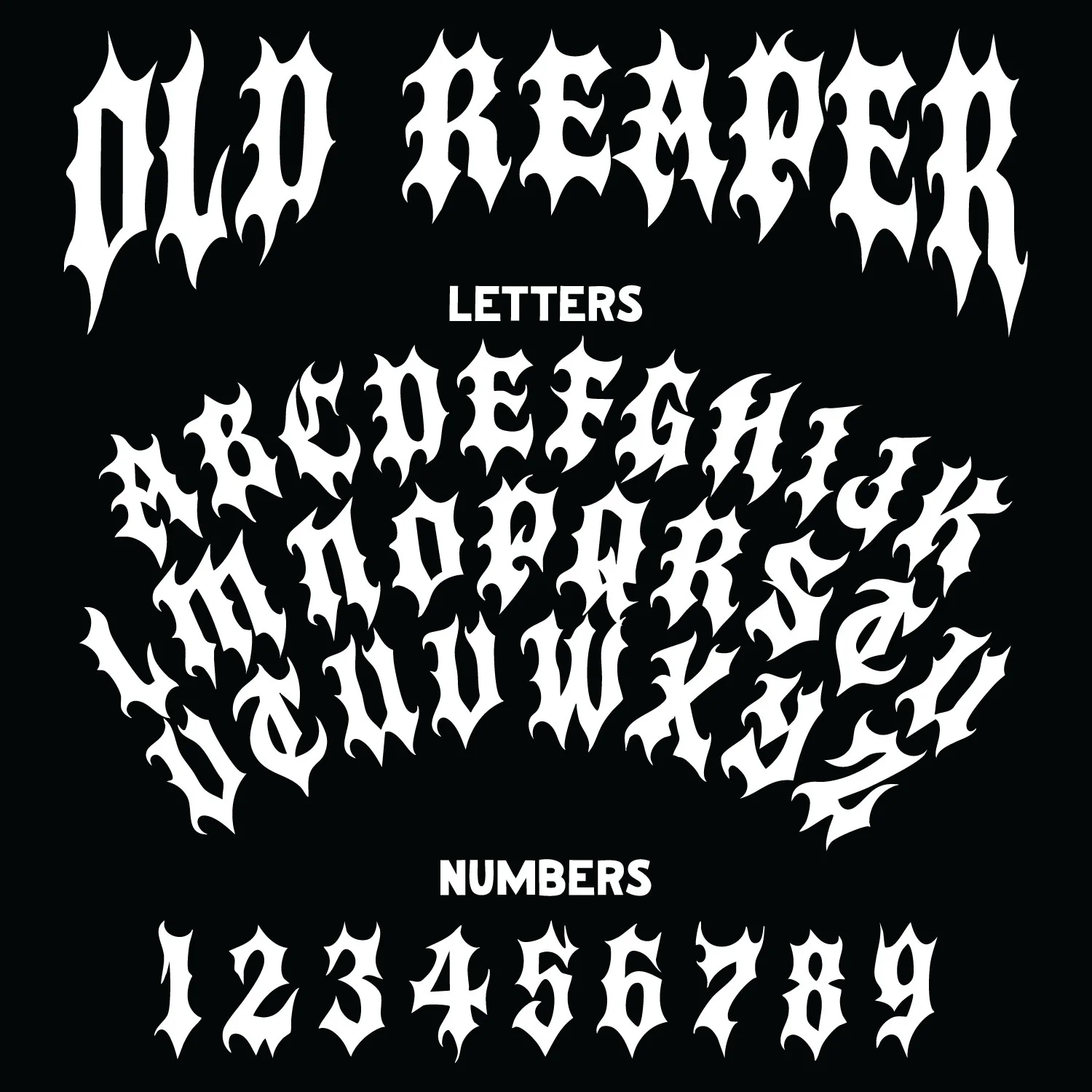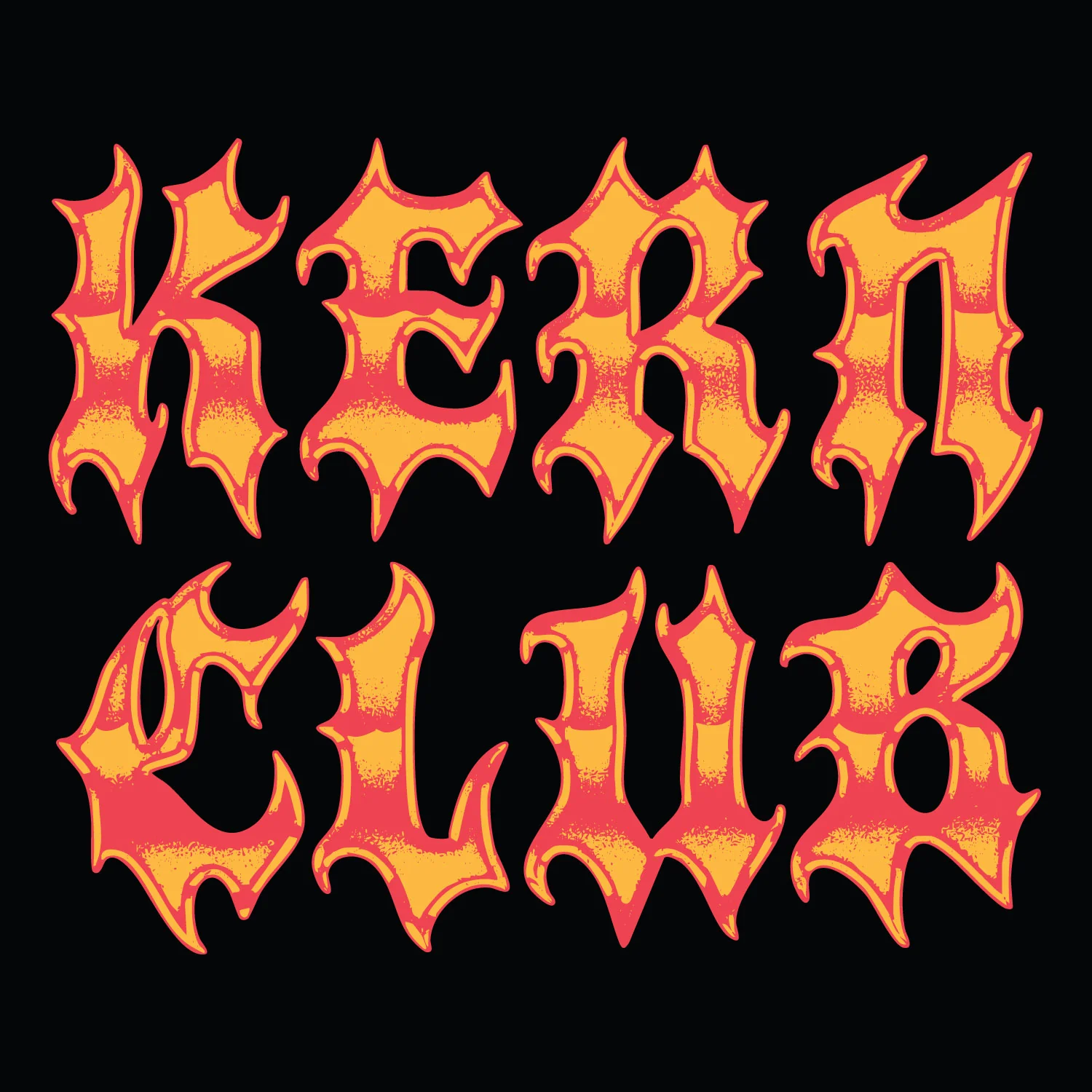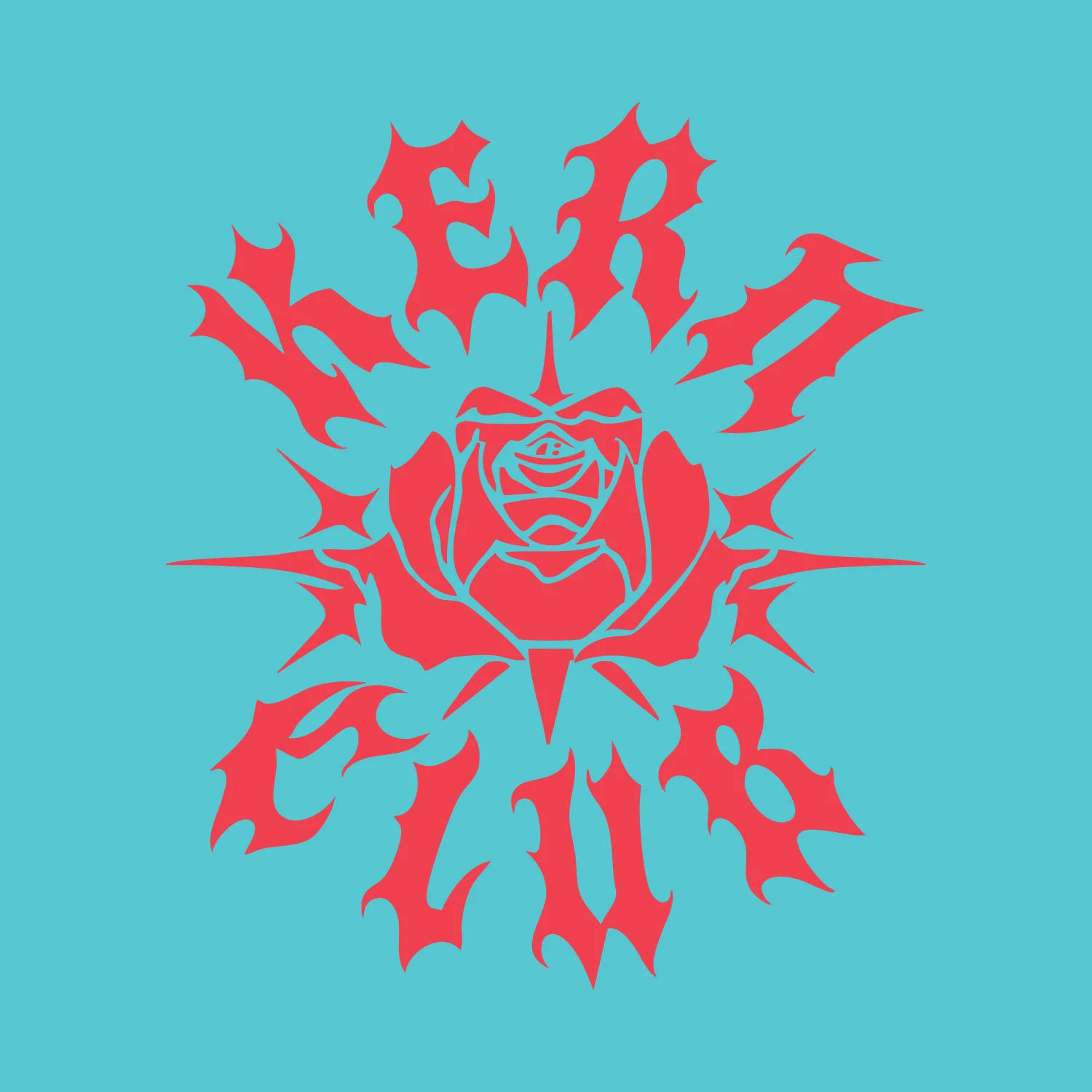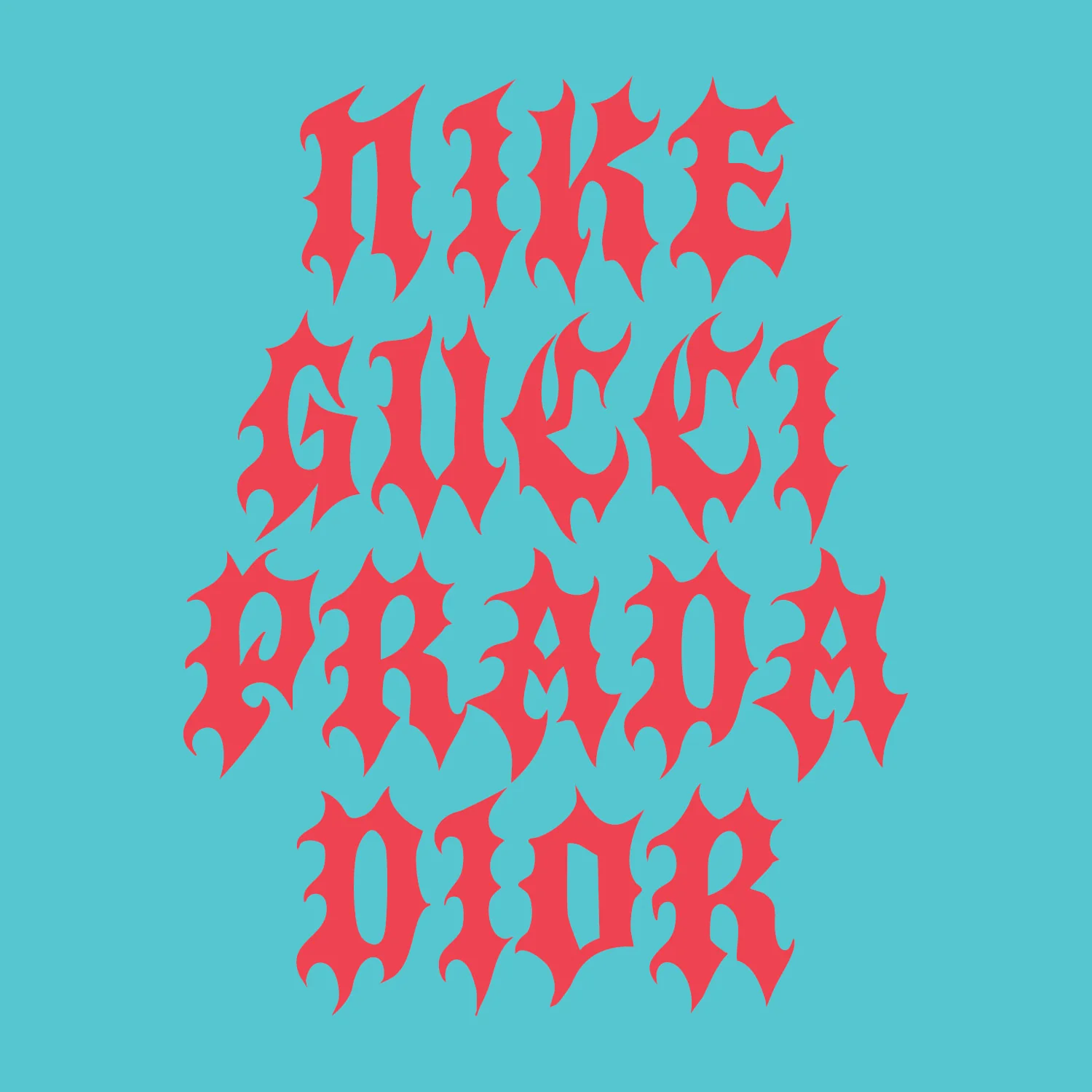
Old Reaper Font
An Old English black letter font with evil tendencies and razor sharp serifs designed by Samborghini
- Uppercase Character Set A-Z
- Numerals & Simple punctuation
An Old English black letter font with evil tendencies and razor sharp serifs designed by Samborghini
- Uppercase Character Set A-Z
- Numerals & Simple punctuation
An Old English black letter font with evil tendencies and razor sharp serifs designed by Samborghini
- Uppercase Character Set A-Z
- Numerals & Simple punctuation